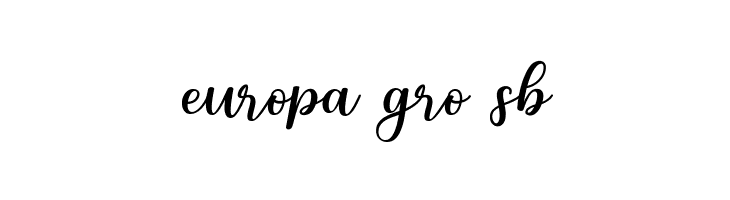
A dynamic, brush-style font with expressive, flowing strokes.
• Antistar-Regular
A bold, decorative font with whimsical curves and unique serifs.
• Antivirus Viruses Regular
A playful, hand-drawn style font with bold, irregular characters.
• AntKiller
• Antobe
A classic serif font with modern elegance and clear readability.
• Antoine Regular